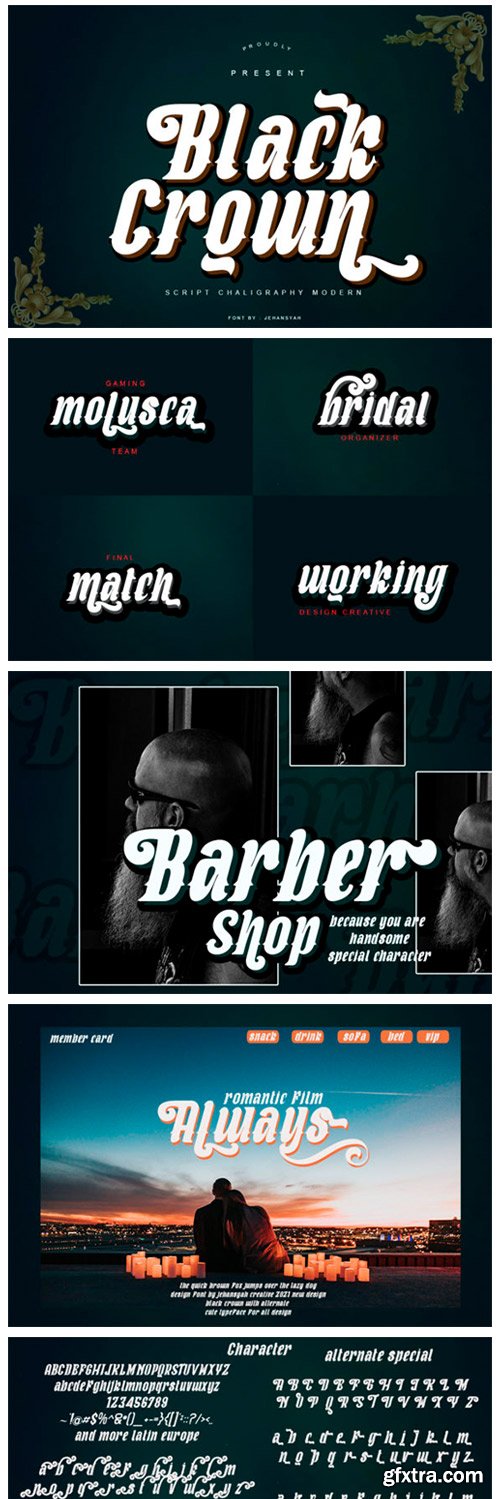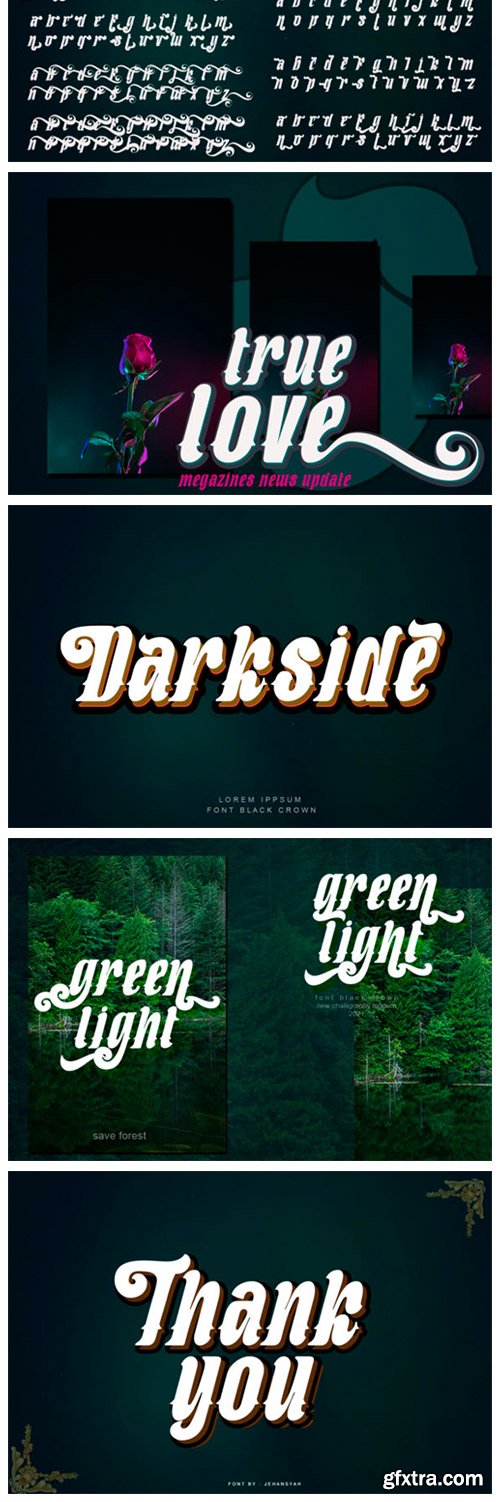
Black Crown Font
Black Crown is a gorgeous and daring handwritten font, crafted to give your headlines and logotype projects a stylish touch. This font is PUA encoded which means you can access all of the glyphs and swashes with ease!